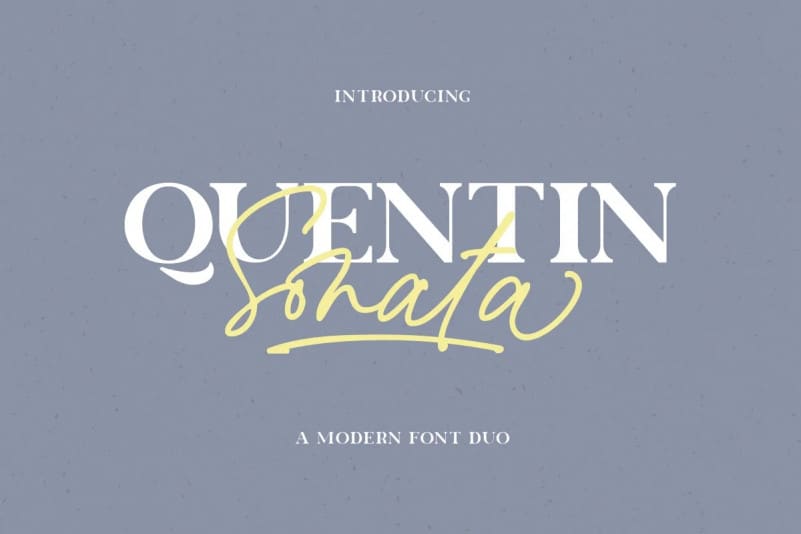
Quentin Sonata Font
Quentin Sonata Handwritten Font is a delicate and beautifully designed handwritten font. It’s designed and shared by Rillatype. Its elegant and well rounded letters make this font a masterpiece. its a versatile font that works perfectly for branding projects, logo design, product packaging, headline, quotes, etc.